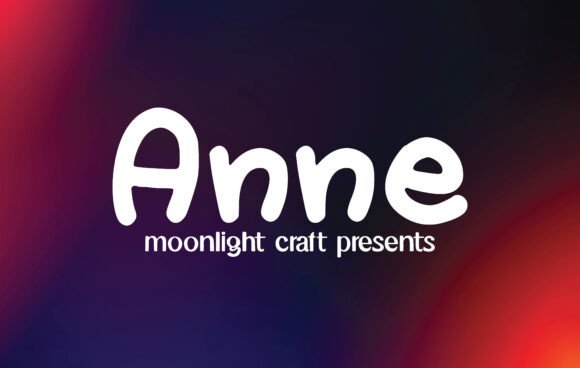
The Magic of Anne Font: Elevating Your Designs with a Lovely Handwritten Touch
I’ll never forget the time I was working on a branding project for a new coffee shop. I had a clear vision of what I wanted to achieve, but something was missing – the perfect font. I scrolled through pages of font options, but none seemed to capture the warm and cozy atmosphere I was going for. That’s when I stumbled upon Anne Font, a beautiful handwritten font that instantly resonated with my design sensibilities. In this article, I’ll share my experience with Anne Font, its features, and how to make the most of it in your designs.
An Honest Review of Anne Font
What I Love About Anne Font
- ✨ Unique and Elegant Style: Anne Font boasts a distinctive, elegant handwritten style that adds a touch of sophistication to any design.
- ✅ Versatility: Its clean lines and flowing curves make it perfect for a wide range of applications, from logos and branding to quotes and social media graphics.
- 💫 Attention to Detail: The font’s creator has paid close attention to even the smallest details, resulting in a polished and refined look.
While Anne Font is an excellent choice for many design projects, there are a few things to keep in mind:
- 🤔 Legibility at Small Sizes: Like many handwritten fonts, Anne Font can become less legible at very small sizes. It’s best used at larger sizes or for headlines.
- ⚠️ Overuse: While Anne Font is beautiful, using it excessively can make your design look cluttered. Balance is key.
The Story Behind Anne Font
Anne Font was created with the intention of providing a beautiful, elegant handwritten font for designers. Inspired by classic calligraphy and modern typography, Anne Font’s creator aimed to craft a font that would add a touch of warmth and personality to any design. While the exact story behind Anne Font may be unknown, its beauty and versatility have made it a favorite among designers.
| Font Name | Anne Font |
| What makes Anne Font unique? | Anne Font’s unique blend of elegance and playfulness makes it stand out. Its clean lines and flowing curves give it a distinctive look that’s both modern and timeless. |
| Is Anne Font suitable for body text? | While Anne Font is beautiful, it’s best used for headlines or short paragraphs. For longer body text, a more traditional font may be more readable. |